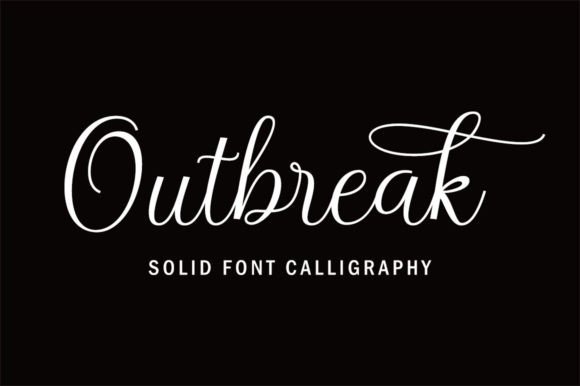
Looking for the best fonts for print ads? Look no further than Outbreak Font, a stunning script font family created by gatype.
With its thin, flowing typographic outline, Outbreak Font adds authentic personality to your designs. Its natural-looking handwriting is perfect for adding a touch of humanity to your work. But don't let the delicate appearance fool you – Outbreak Font is also incredibly versatile and can be used in a variety of contexts.
One of the standout features of Outbreak Font is the range of binding options and alternatives available. This means that you can create a diverse range of designs, all with the same stunning typographic backbone.
And it's not just the letterforms themselves that are eye-catching. Outbreak Font also features artistic swashes and elegant loops that add even more visual interest to your work.
Whether you're looking to create a print ad, a logo, or any other piece of visual content, Outbreak Font is the perfect choice. With its unique personality and artistic flair, it's sure to elevate your work and make it stand out from the crowd.